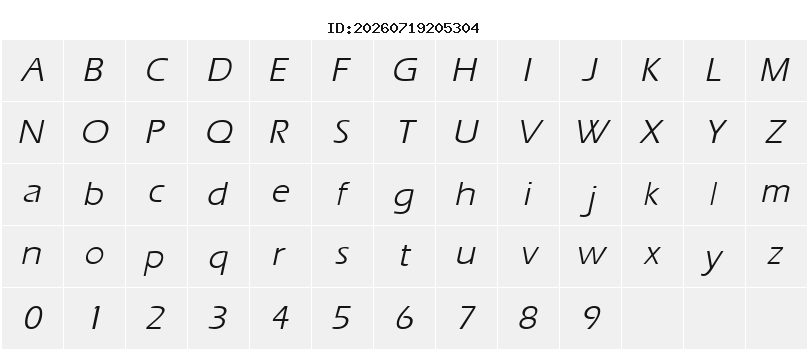
• Font Name: Eros
• Font ID: Altsys Fontographer 4.1 Eros Italic
• Full Font Name: Eros Italic
• Version: Altsys Fontographer 4.1 6/29/95
• PostScript Name: ErosItalic
• Character Count: 191
About Eros.ttf
Eros.ttf is a modern, elegant sans-serif font designed for ultimate readability and visual harmony. Perfect for branding, headlines, web design, and print materials.